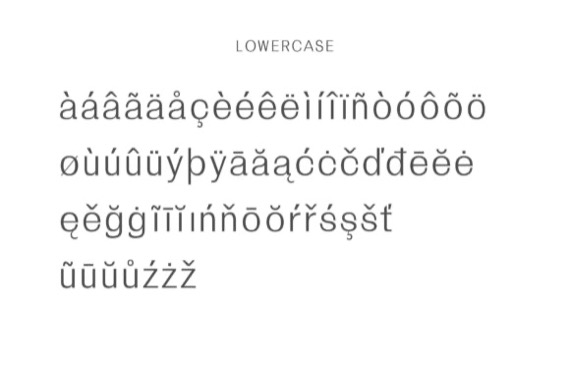
Daaron is a casual and modern sans serif font family that was created and shared by Creative Tacos along with a minimalist style and a unique touch. It comes with 3 weights: Regular, Round and Bold versions that will turn any design project into a stunner.
Daaron Sans Serif Font Family